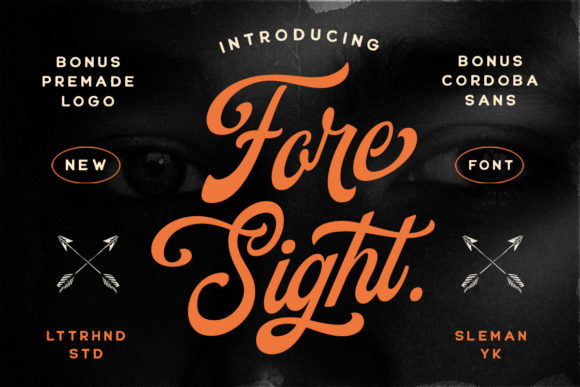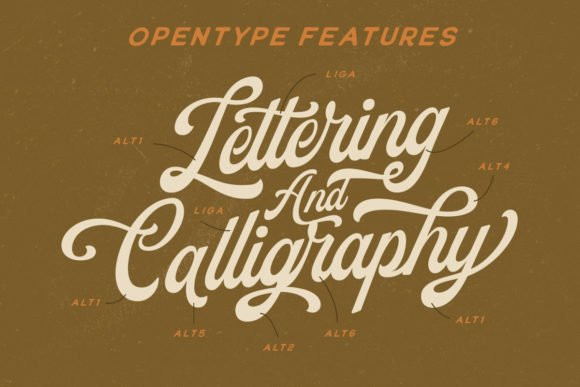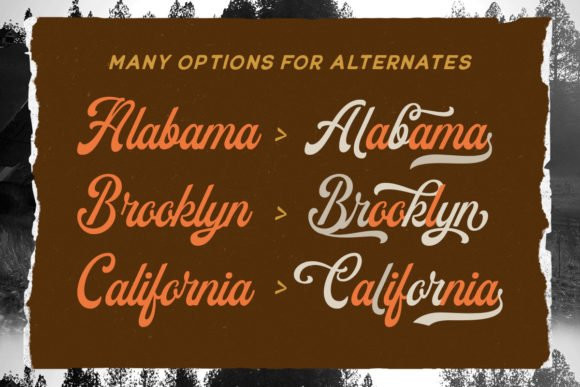
Foresight Font
Foresight FontForesight is a gorgeous and bold duo font (handwritten and script), crafted to give your headlines and logotype projects a retro touch. This font reads as strong, confident, and dynamic.